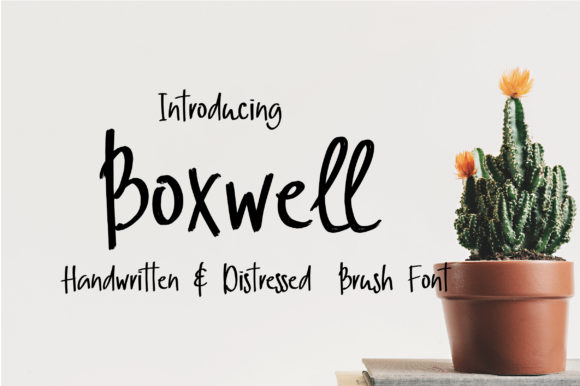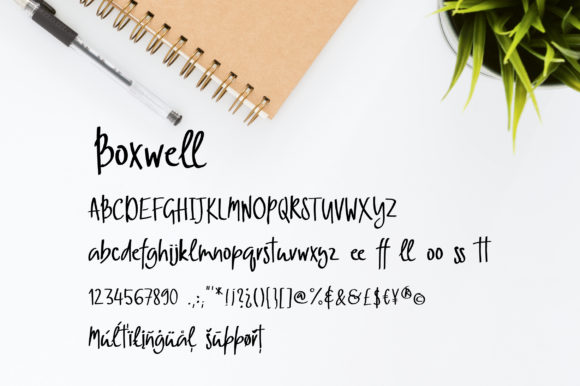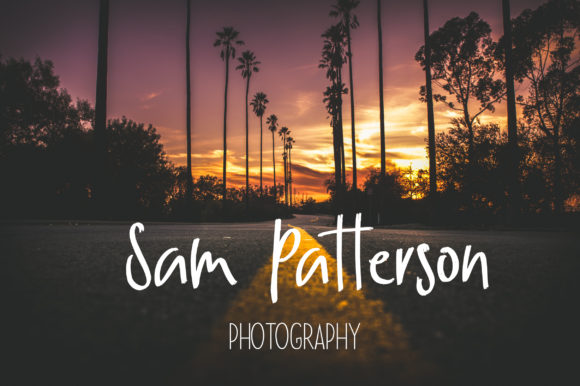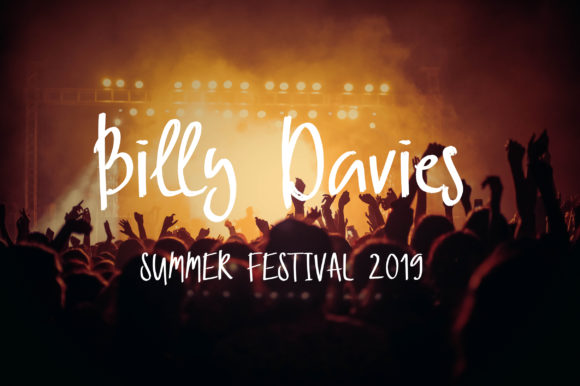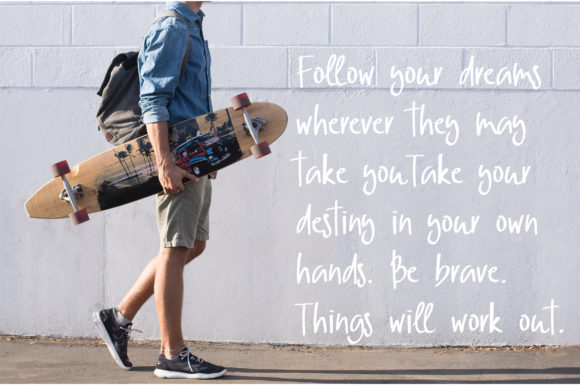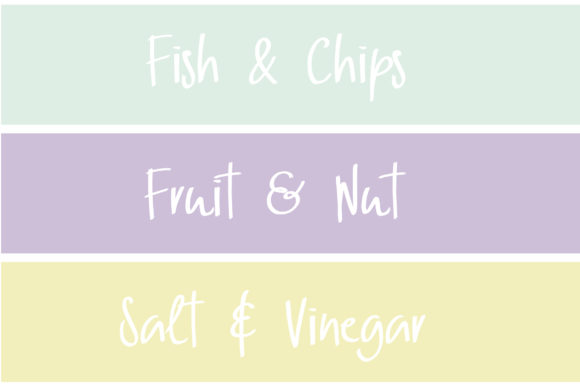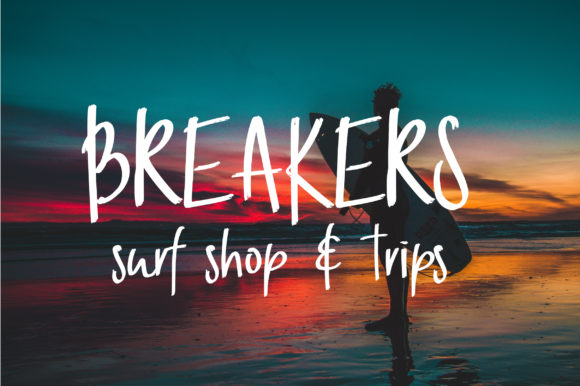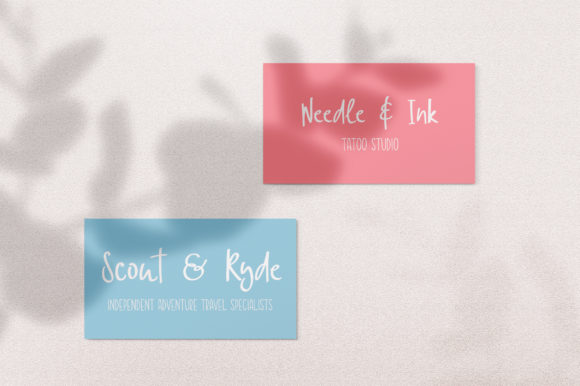
Boxwell Font
About Boxwell Font
The Boxwell is an amazing handwritten font. It has a distressed look and is perfect for adding a natural, yet striking touch to your designs.